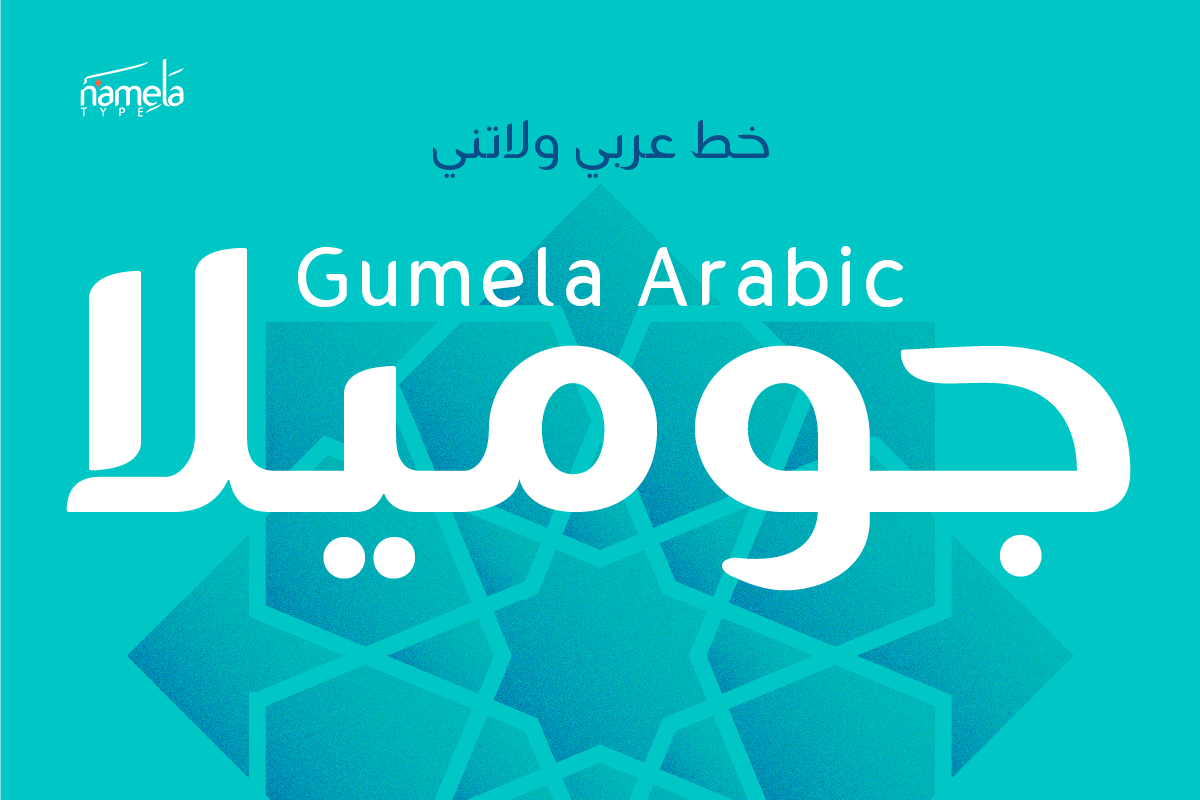
Gumela Arabic
Gumela Arabic Font - A Modern Simplified Kufic Typeface for Branding and ePub Arabic typography carries a long and sophisticated legacy—one that modern design doesn’t always explore with the depth it deserves. Gumela Arabic from Namelatype approaches that heritage with both respect and creative ambition. Drawing inspiration from the geometric clarity of Kufic calligraphy, it transforms tradition into a contemporary voice. The result is a refined Arabic font that feels artistic, culturally ground